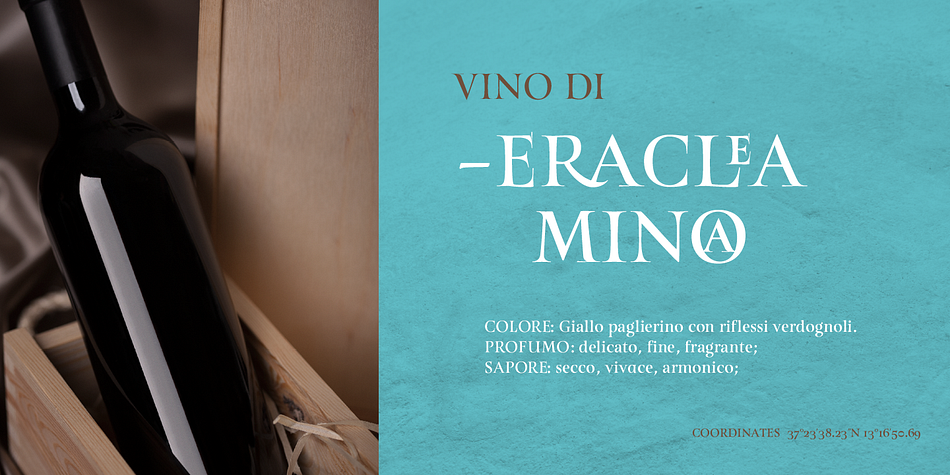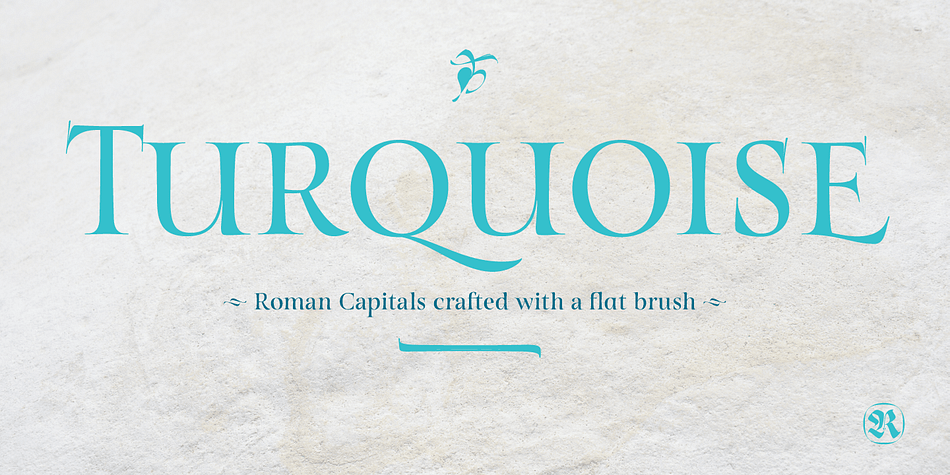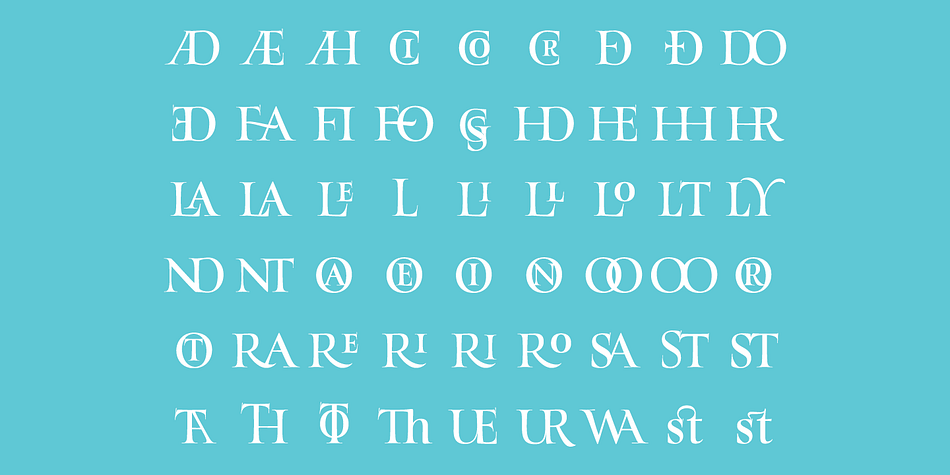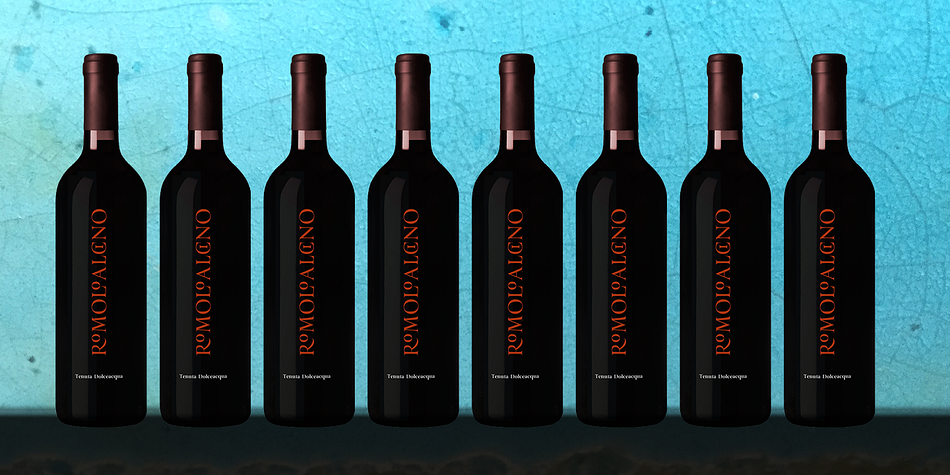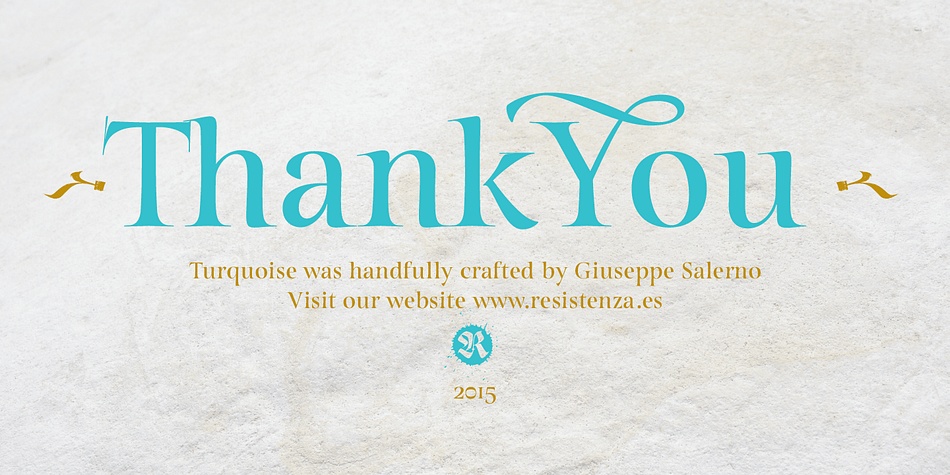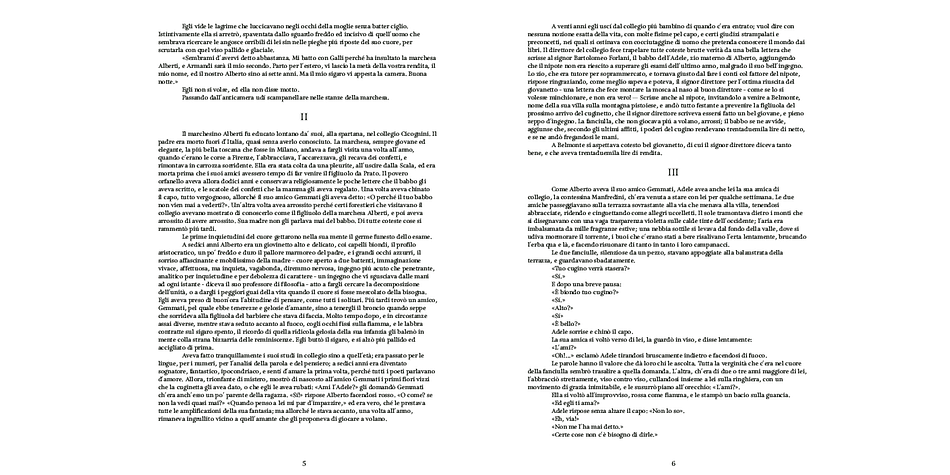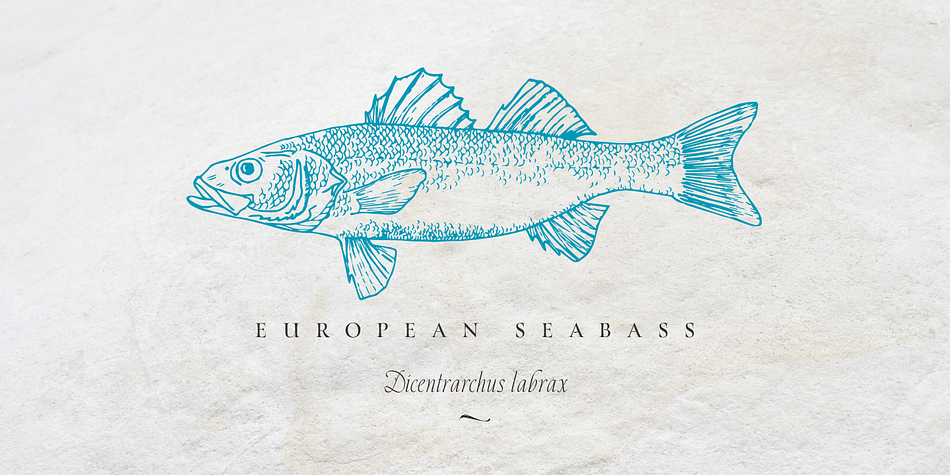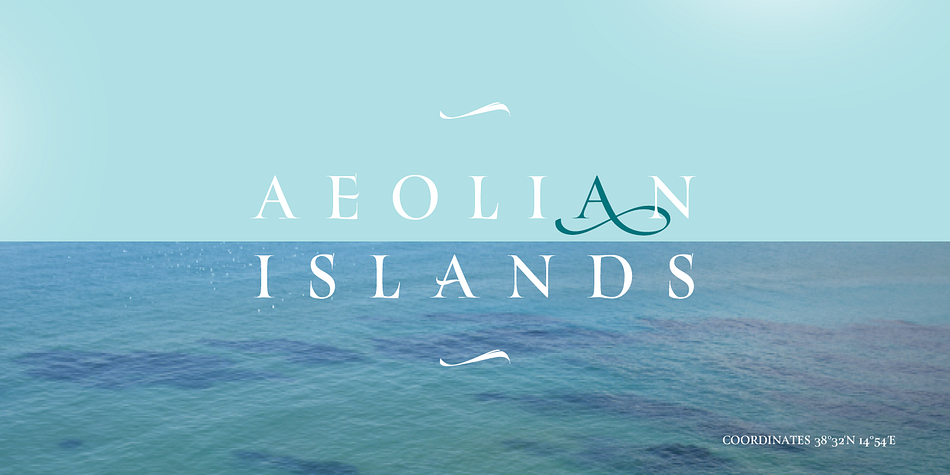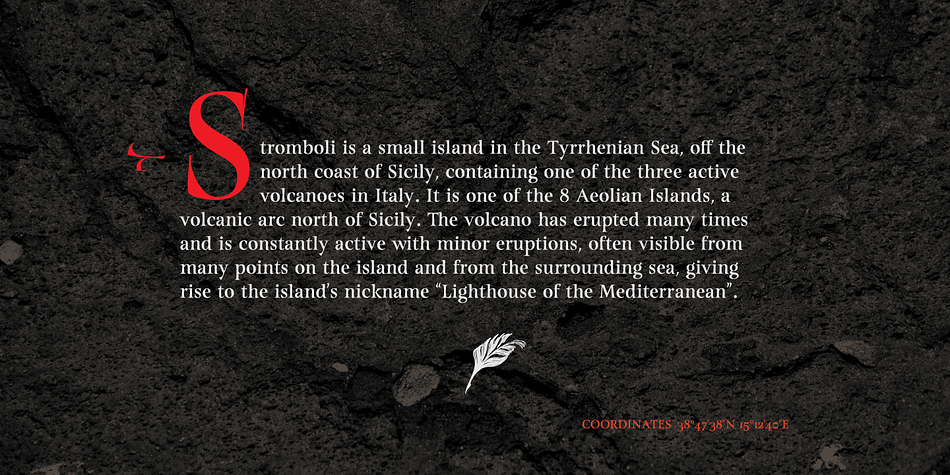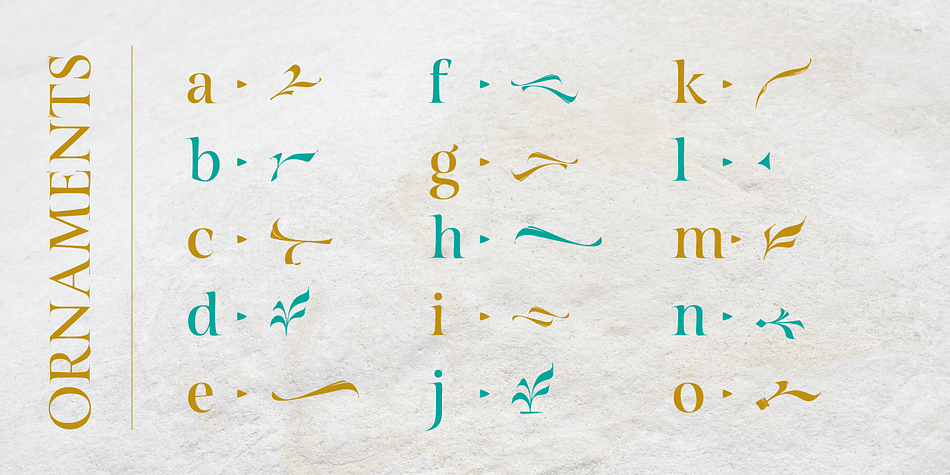
Turquoise is a serif font published by Resistenza.es.
Our goal was to design Roman Capitals that were smoothly designed with a brush, not carved. The main idea was based on the fundamental brush strokes that are commonly studied when you practice Romans. That’s why many Serifs have these unfinished terminals.
During the lowercase process, I was still following Foundational calligraphy with a flat brush. My Turquoise Capitals were then adjusted and redesigned at the Tipobrda calligraphy workshop in Slovenia.
Turquoise contains small caps, many discretionary ligatures, ornaments, swashes as well as several brushy nature-inspired ornaments, accessible via Opentype. Ideally suited for headlines or body text in advertising, packaging and visual identities, its delicate shapes, curves, and endings give projects a harmonious elegance and stylistic feel in unique Turquoise style.
My inspiration for this font showcases is one of the richest islands in the Mediterranean, the place where my parents are from, Sicily. This southern Italian region has so many unique spots: Stromboli, part of the Aeolian Islands and the Pelagie Islands, is one of my favorite places in Sicily. The pictures I used were taken there this year.
So enjoy the sun, the serifs, the water and its Turquoise colors. The brush is mightier than the sword.